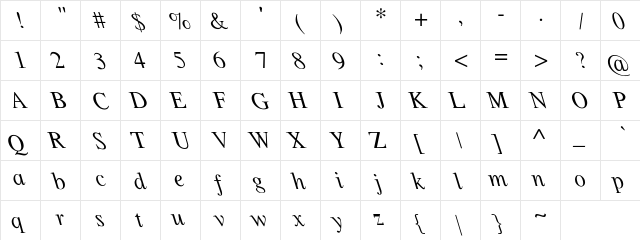
TimesItalicLeft Regular
Design Context for TimesItalicLeft Typeface
TimesItalicLeft offers clean, dependable letterforms without strong stylistic allegiance, making it a practical choice for designers who need flexibility. The slanted form adds forward momentum and visual energy.
Pro Tip: Try TimesItalicLeft for annotation and caption copy alongside an upright companion — the contrast in angle creates a dynamic but ordered typographic system.